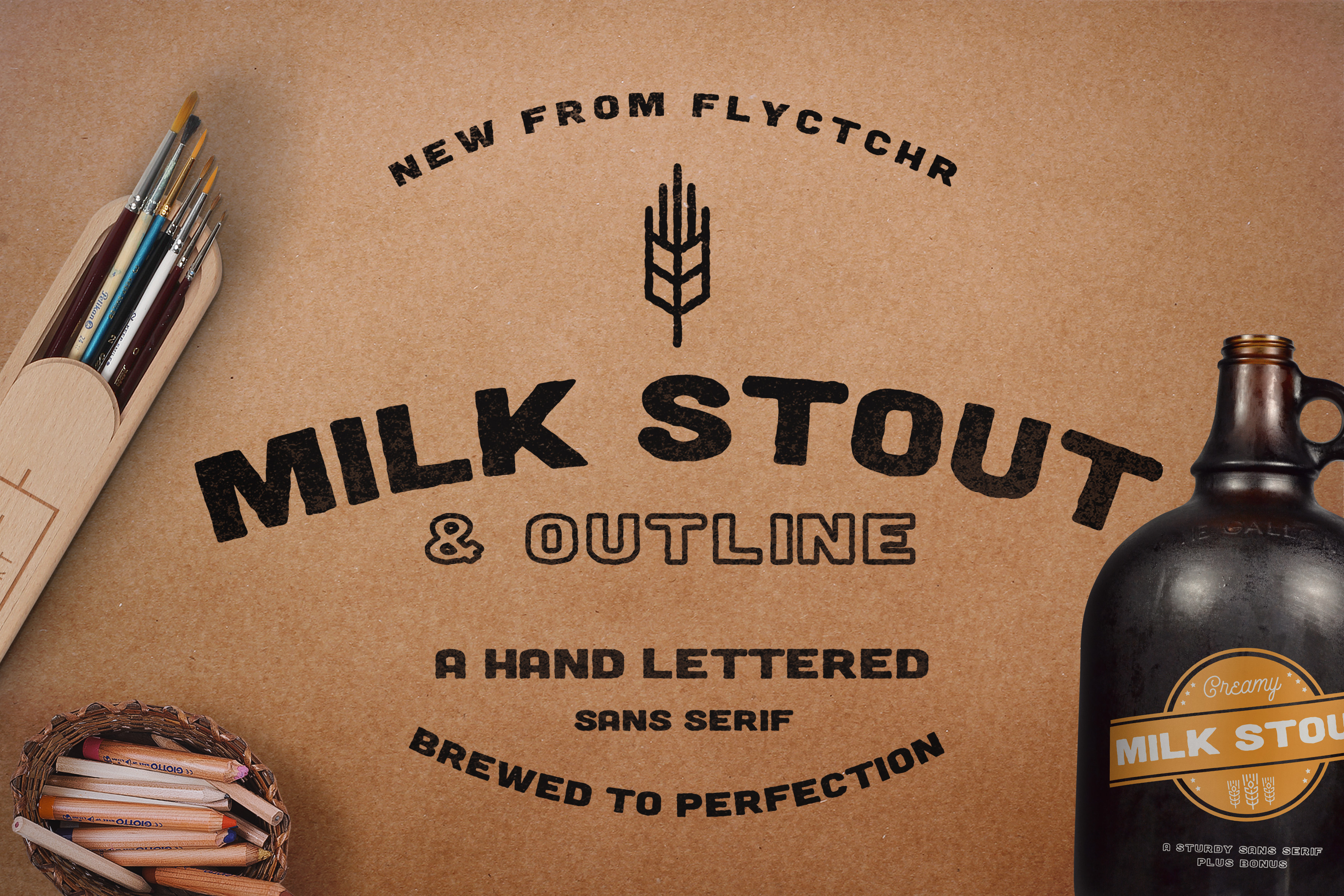
Milk Stout Font
MILK STOUT is a sturdy, hand-lettered sans serif font family inspired by the beautiful typography found on craft beers across the globe. It includes 2 fonts (Fill & Outline). Each of these come in otf, ttf, and a webfont. This sans serif is perfect for logos, typography, prints, and t's.